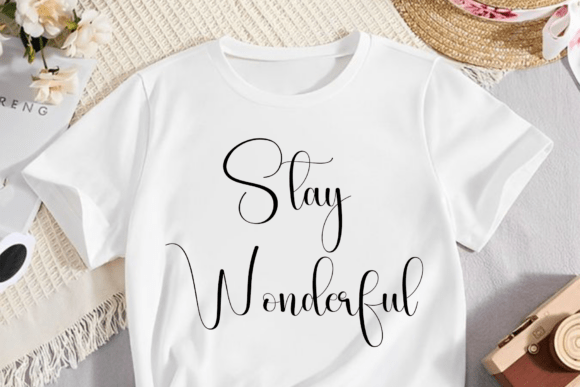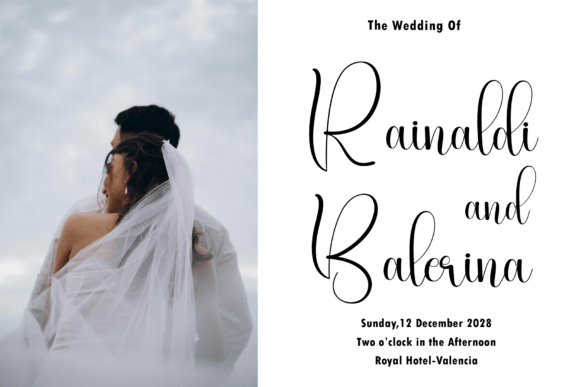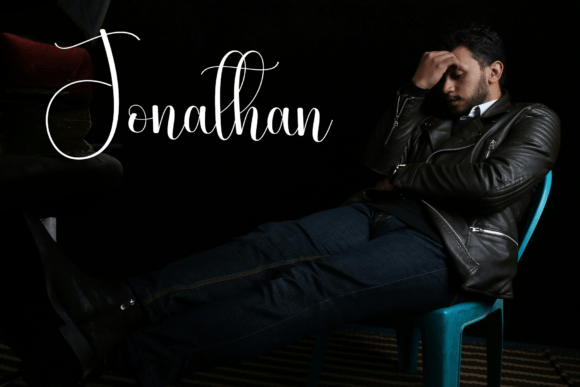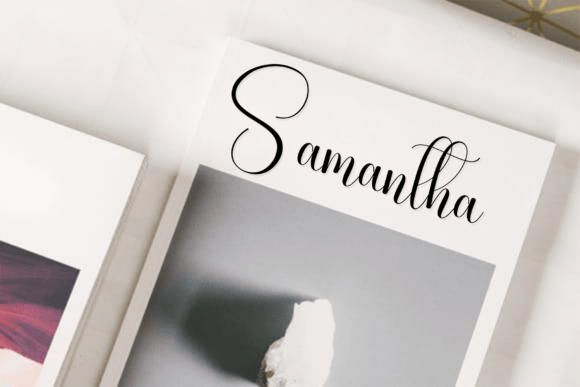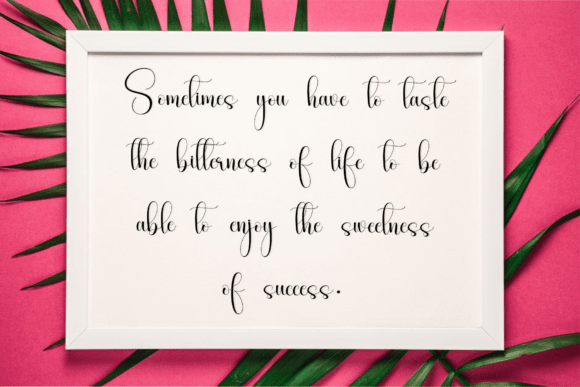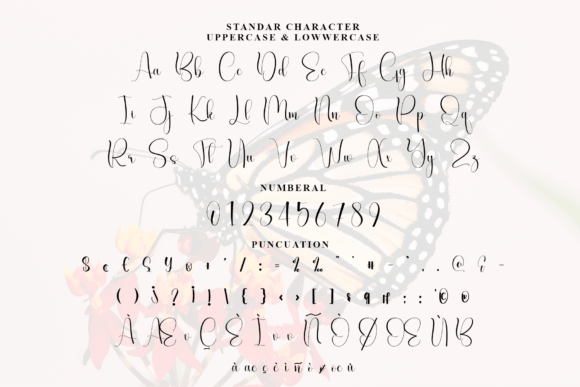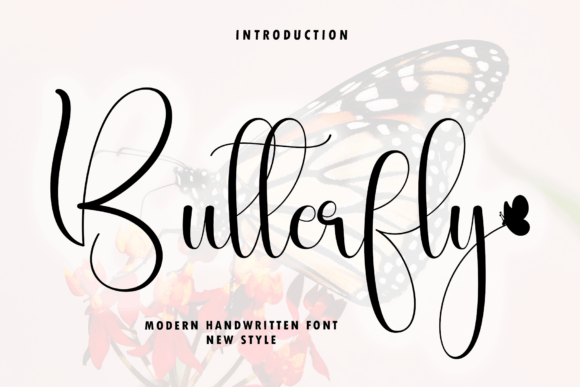
The Elegance of Butterfly Font: A Designer’s Delight
I still remember the day I stumbled upon the perfect font for a luxury wedding stationery project. I had been searching for what felt like an eternity, trying out font after font, but nothing seemed quite right. That was until I discovered the Butterfly Font. Its elegant, fluid strokes and sophisticated aesthetic immediately caught my eye, and I knew I had found the one. In this article, I’ll share my experience with the Butterfly Font, its features, and how to make the most of it in your designs.
A Closer Look at Butterfly Font
The Butterfly Font is a modern, sophisticated handwritten script font that exudes elegance and refinement. Its high-contrast strokes, sweeping loops, and fine, tapering terminals give the letterforms a rhythmic and natural handwritten flow. The expansive horizontal presence and delicate connections between characters provide a high-end, personalized aesthetic, making it perfect for luxury wedding stationery, intimate event branding, high-end editorial signatures, and sophisticated lifestyle photography overlays.
So, what do I love about the Butterfly Font? Here are a few things that stand out:
• ✨ Elegant and sophisticated aesthetic
• ✅ High-quality, high-contrast strokes
• 💫 Delicate connections between characters
• 🎉 Expansive horizontal presence
• ⚠️ Some characters may require manual kerning for optimal spacing
• 🤔 Limited availability of certain OpenType features in certain software
The Butterfly Font was designed by a team of typographers who wanted to create a font that captured the essence of elegance and sophistication. Inspired by the delicate wings of butterflies, the font features sweeping loops and fine, tapering terminals that give it a natural, handwritten flow. The design team spent countless hours perfecting the font, ensuring that every detail, from the kerning to the OpenType features, was meticulously crafted to provide a high-end aesthetic.
Here are some frequently asked questions about the Butterfly Font:
What is the Butterfly Font best used for? The Butterfly Font is best used for luxury wedding stationery, intimate event branding, high-end editorial signatures, and sophisticated lifestyle photography overlays.
Is the Butterfly Font suitable for body text? No, the Butterfly Font is best used for headlines and titles. Its elegant, handwritten aesthetic is not suitable for body text.
Does the Butterfly Font support OpenType features? Yes, the Butterfly Font supports OpenType features, including swashes, stylistic alternates, and ligatures.